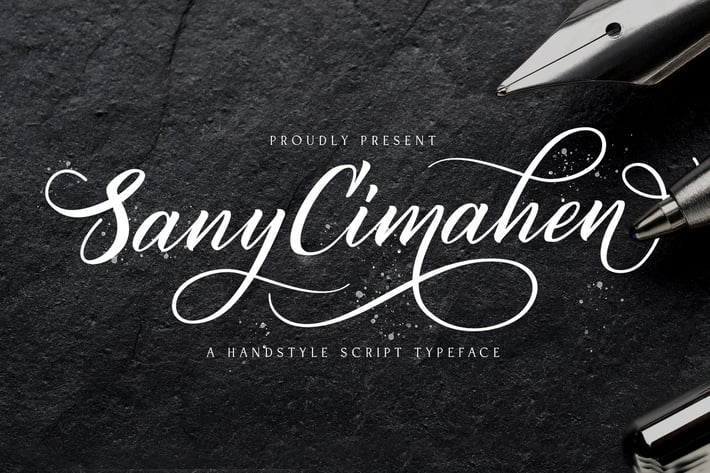
Sany Cimahen - Handwritten Font
Introducing Sany Cimahen - Handwritten Font
Sany Cimahen is a flowing handwritten font, described by an elegant touch, perfect for your favorite projects. Fall in love with its incredibly distinct and timeless style and use it to create spectacular designs!